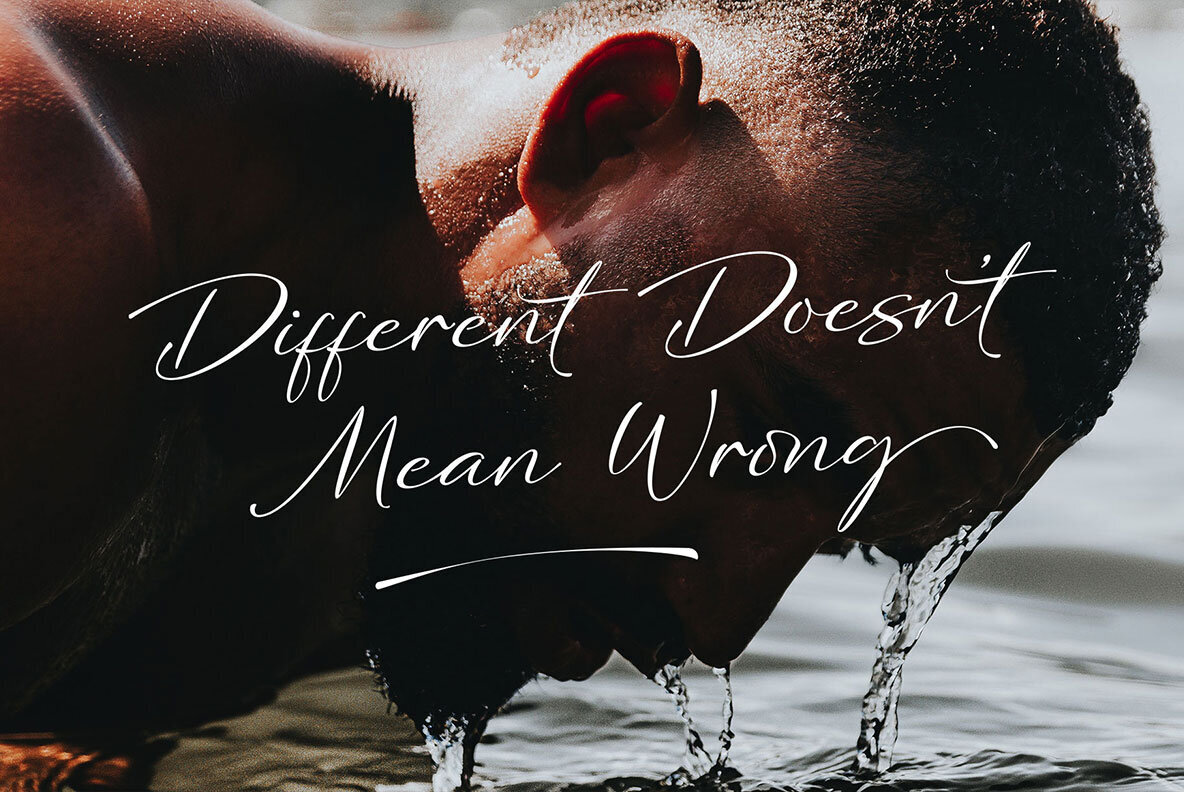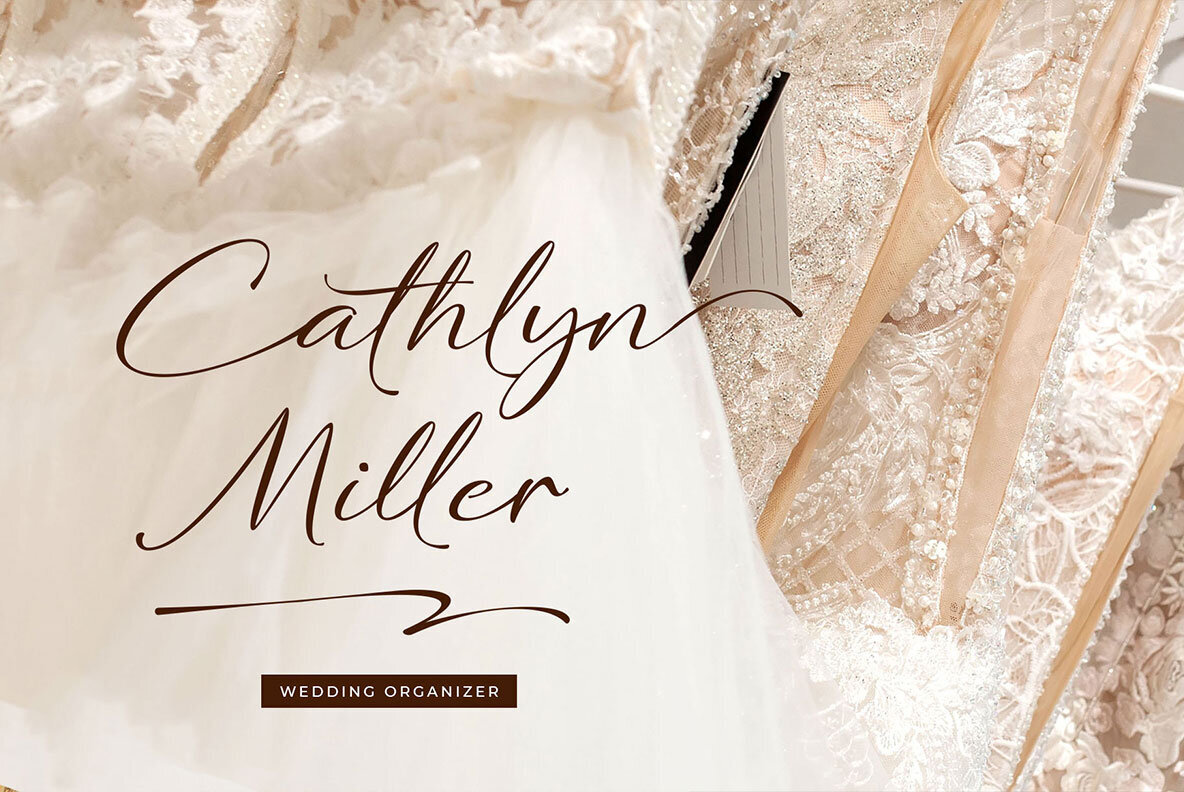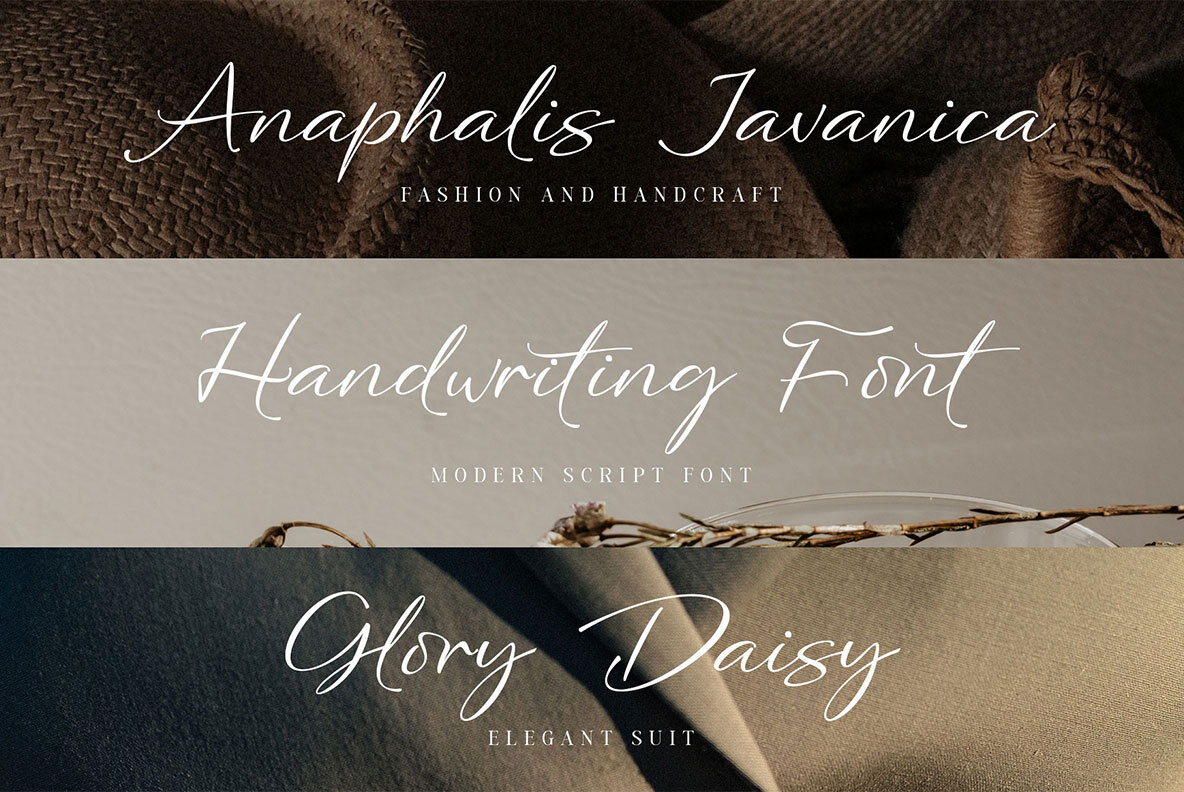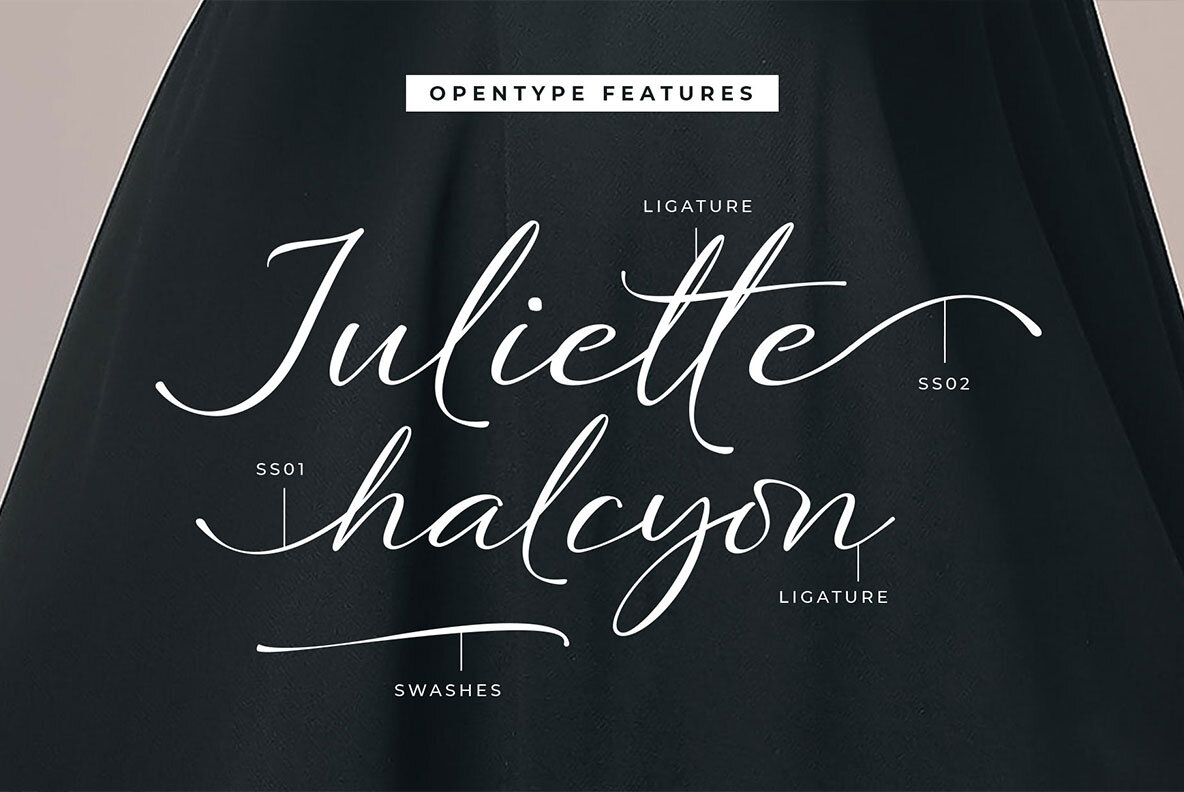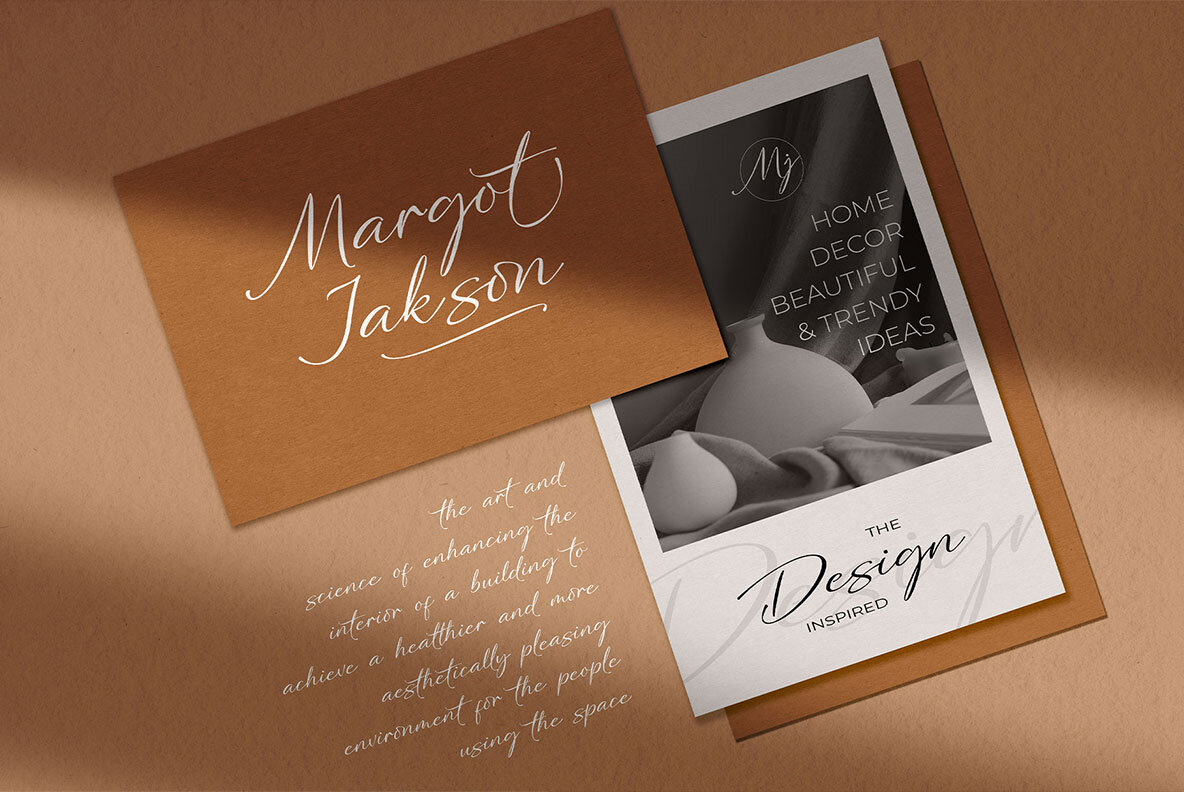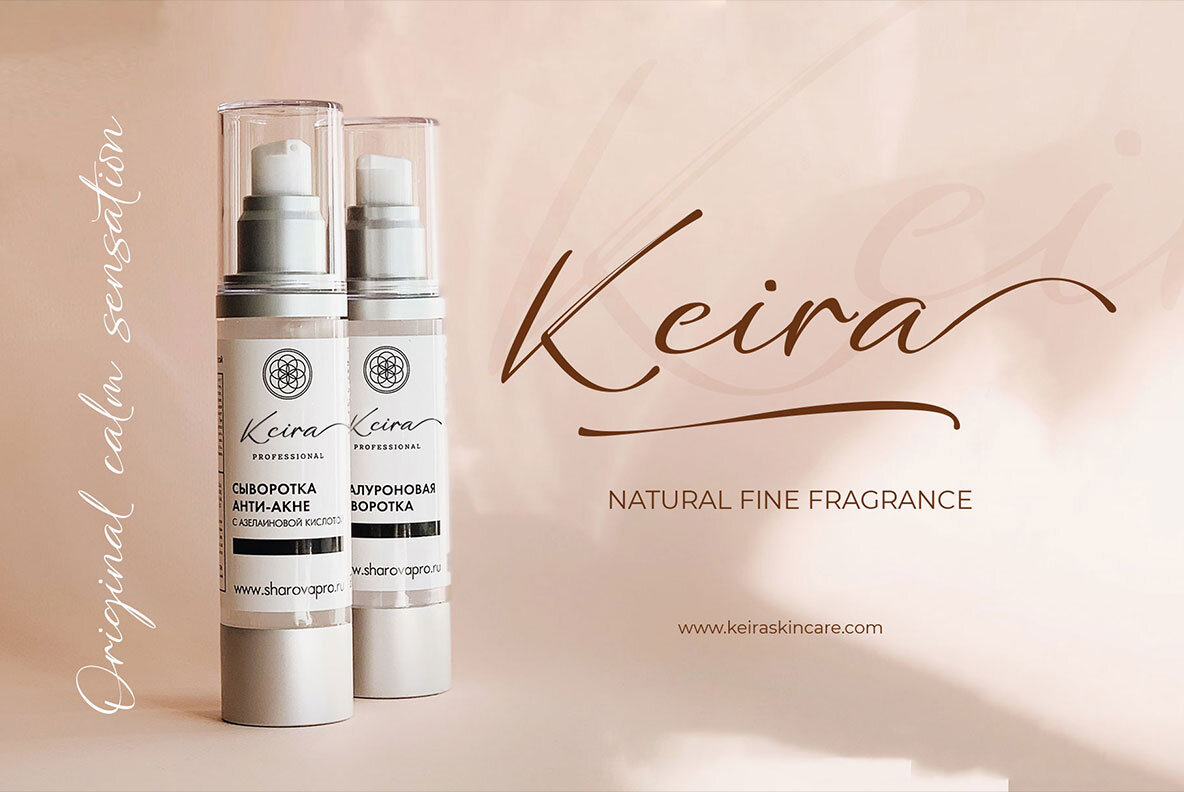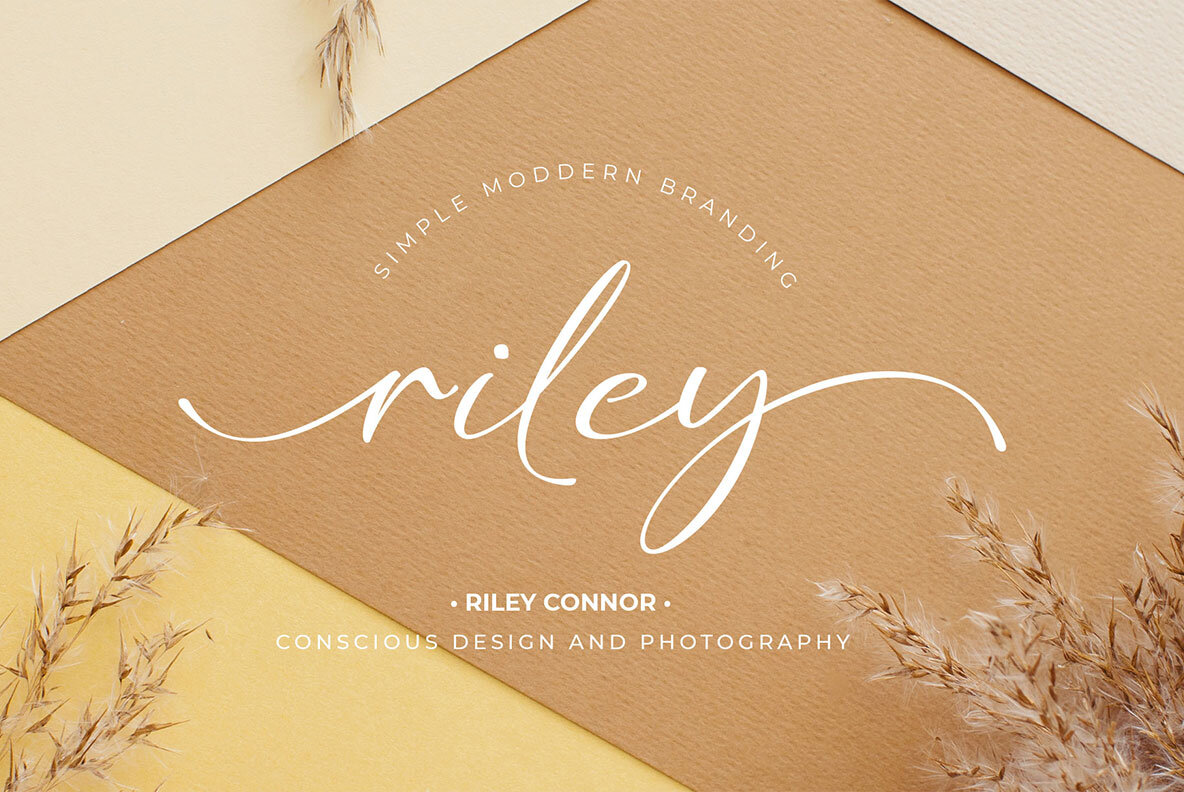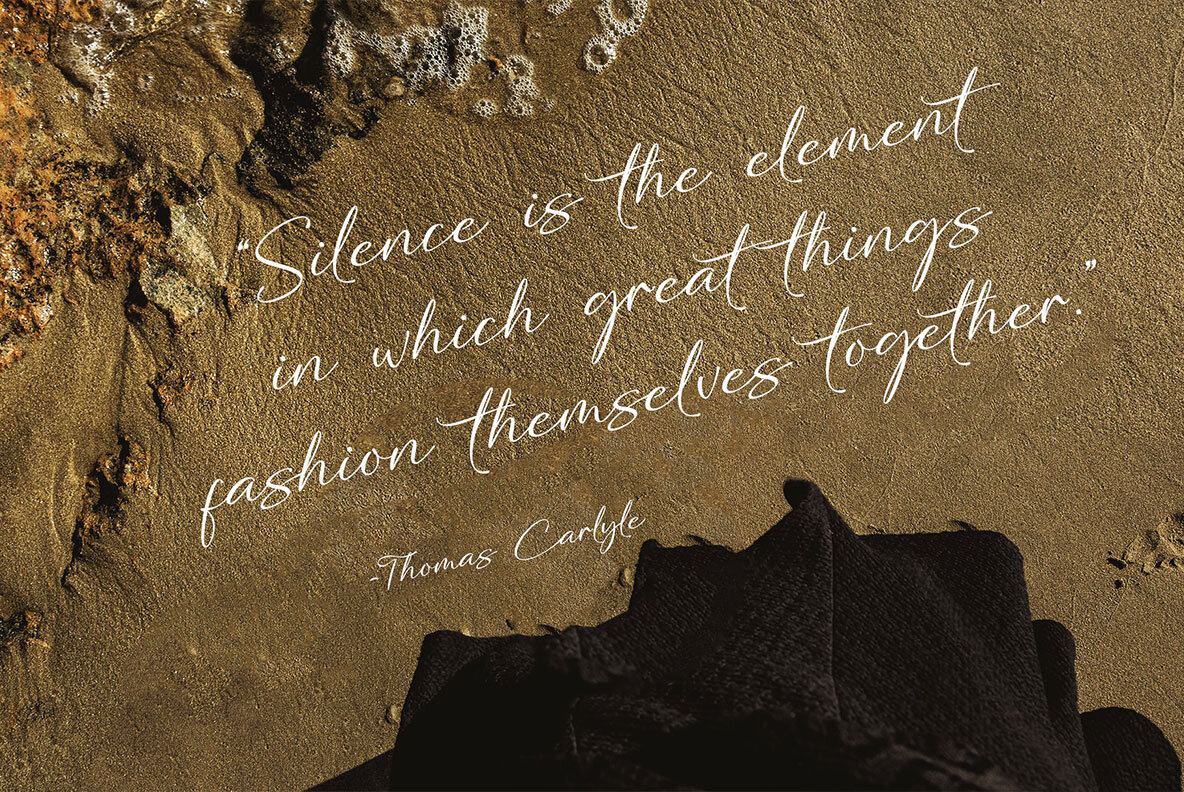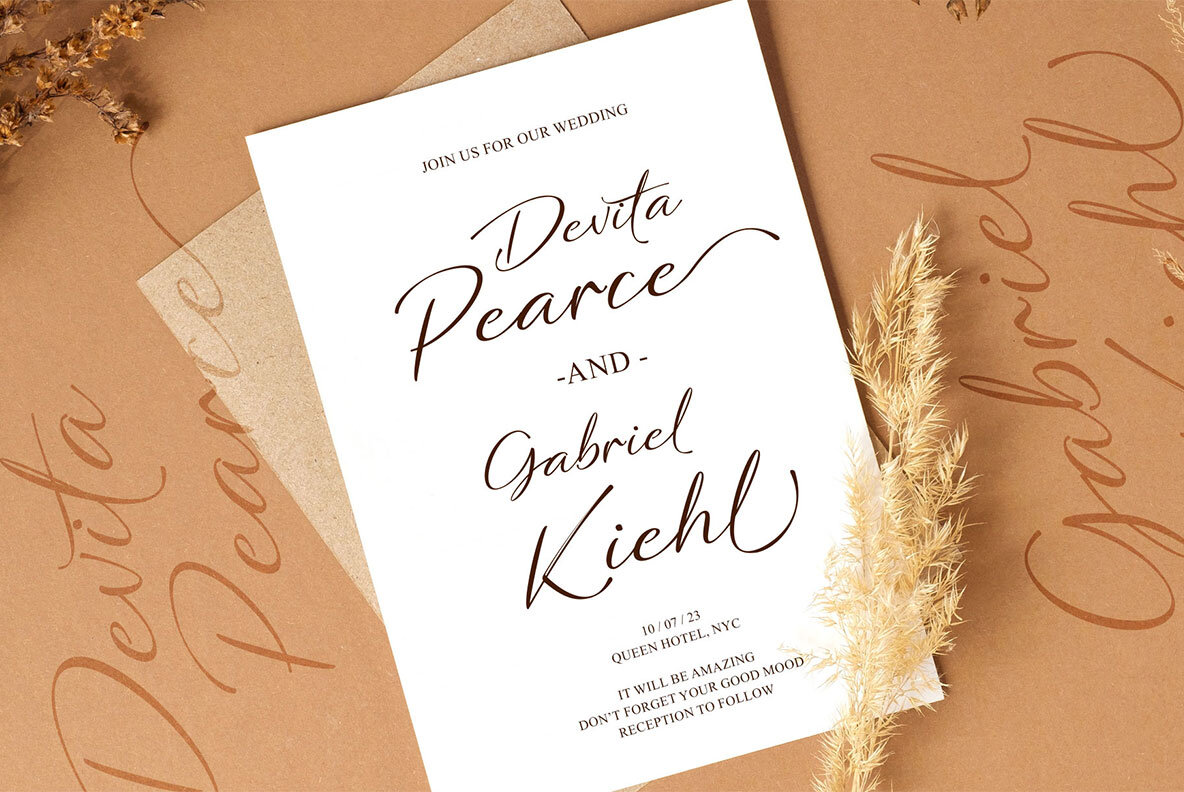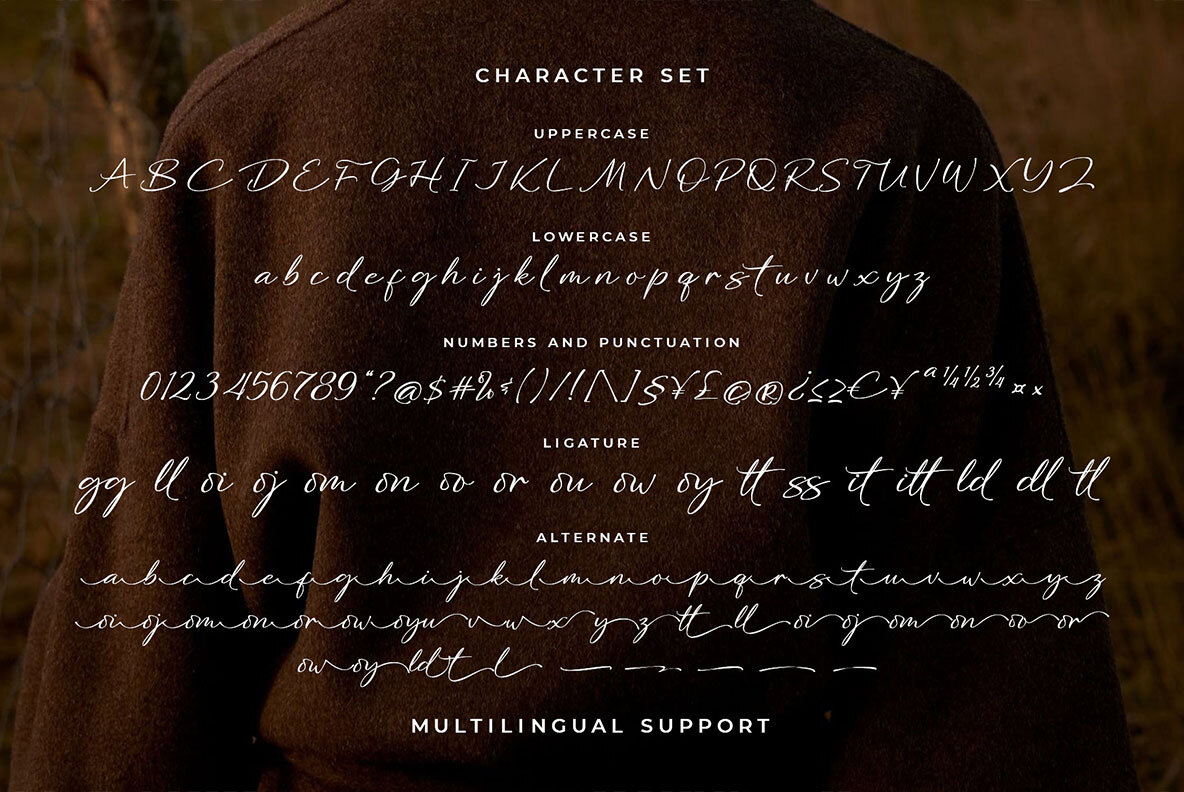
Mellanika: A Handwriting-Inspired Script Font
Mellanika captures the essence of handwritten elegance with its delicate script style. Crafted to embody feminine charm and beauty, this font brings a distinct signature touch suitable for a variety of projects. Its graceful and versatile character makes it an ideal choice for designs that demand a minimalist and clean aesthetic.
• Full Character Set – A complete range of letters to express every detail.
• Alternates & Ligatures – Offers creative flexibility and connection options.
• Swashes – Adds a decorative flourish to elevate your designs.